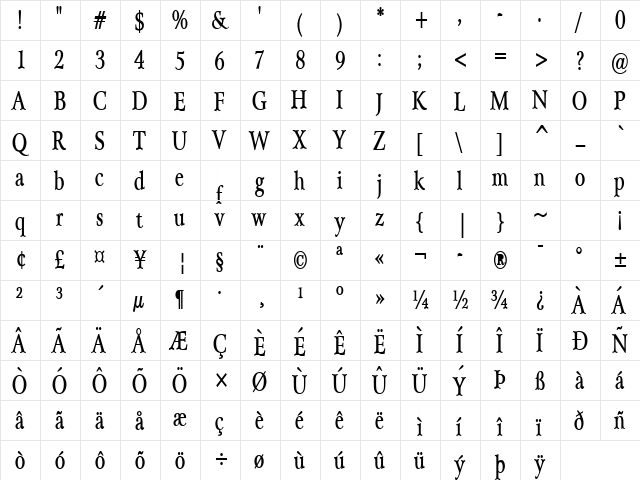
Array Condensed Bold
Design Context for Array Condensed
Array Condensed is a composed and adaptable typeface that performs quietly and consistently across a wide range of design contexts. Its bold stroke weight gives it real presence on the page. Its narrow stance lets it pack a punch even in space-constrained designs.